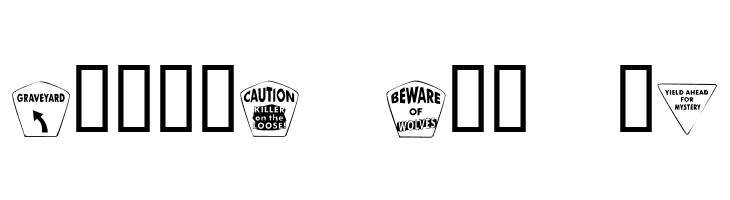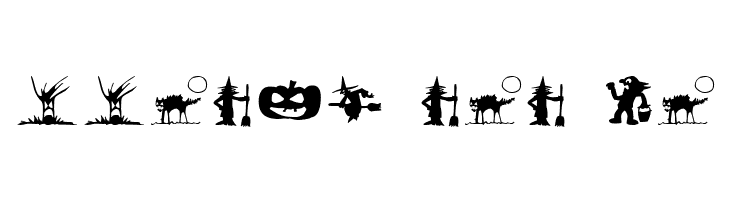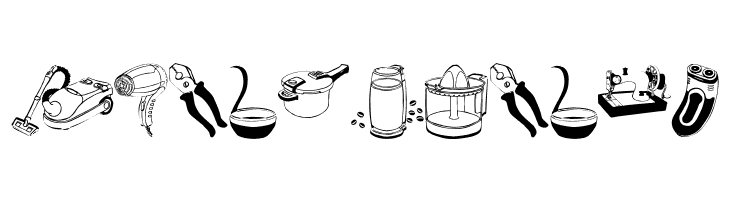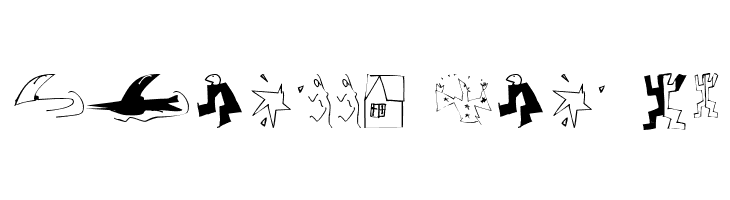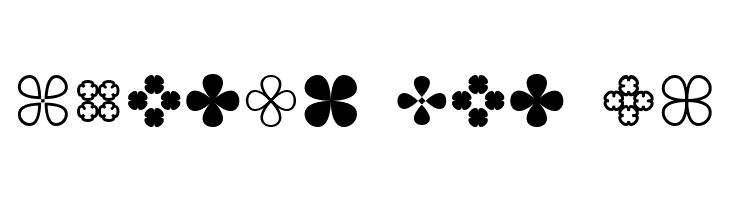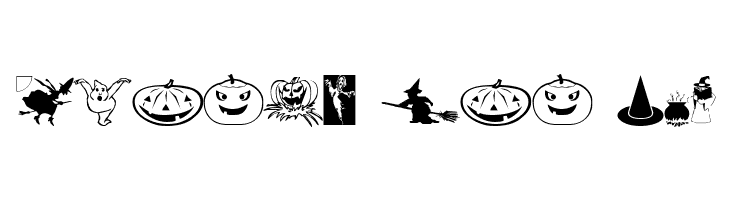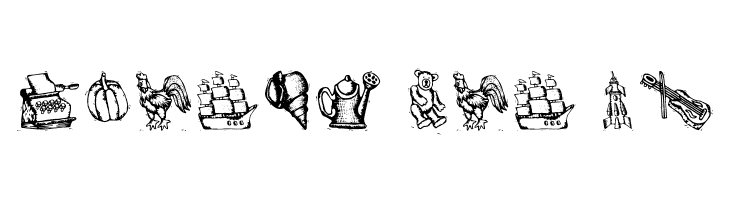
A decorative Halloween-themed font styled as caution signs.
A decorative font with Halloween-themed silhouettes.
Icon-based decorative font with housing and lifestyle motifs.
Hand-drawn, object-based decorative font with playful illustrations.
A whimsical, sketch-like font with unique, artistic character designs.
A collection of decorative geometric and abstract symbols.
A decorative font featuring whimsical, hand-drawn illustrations with a woodcut style.